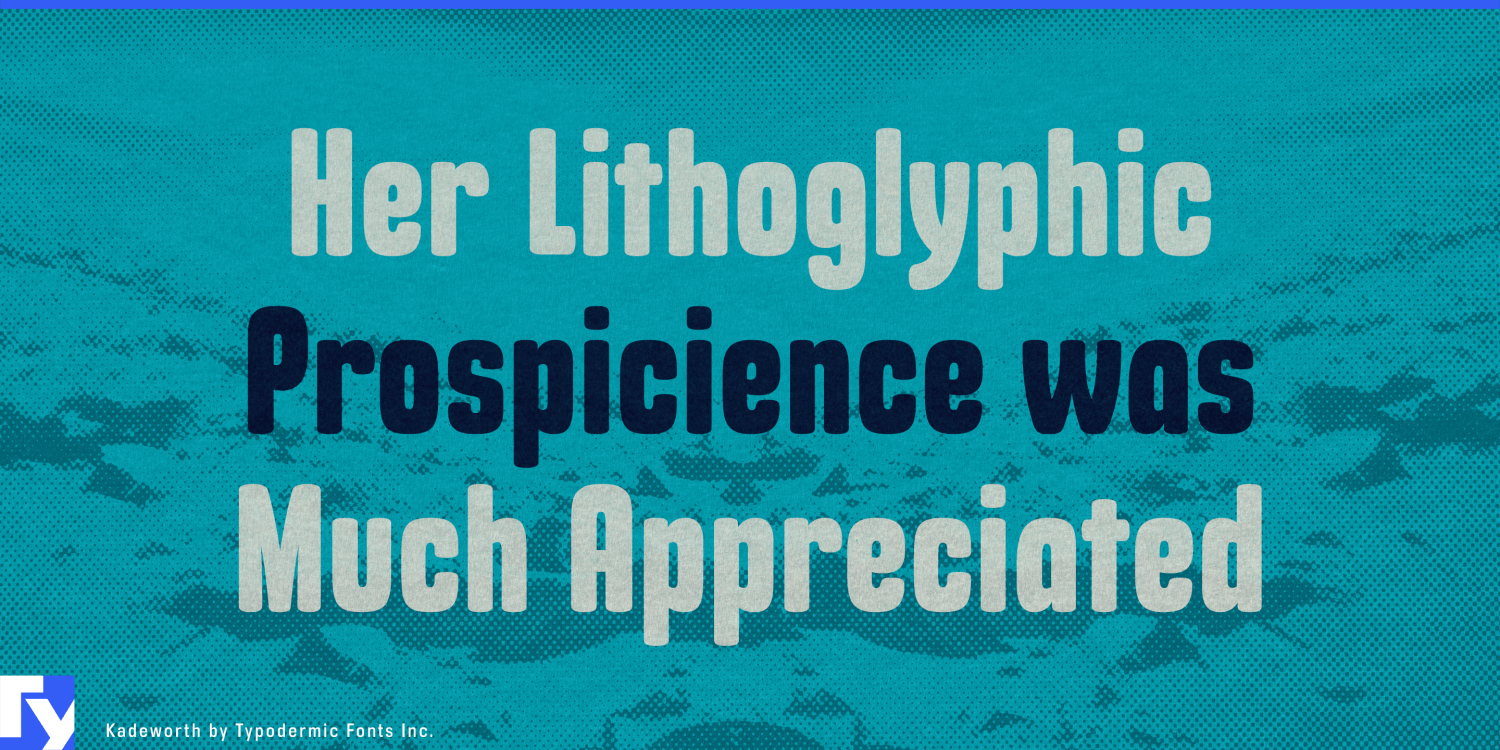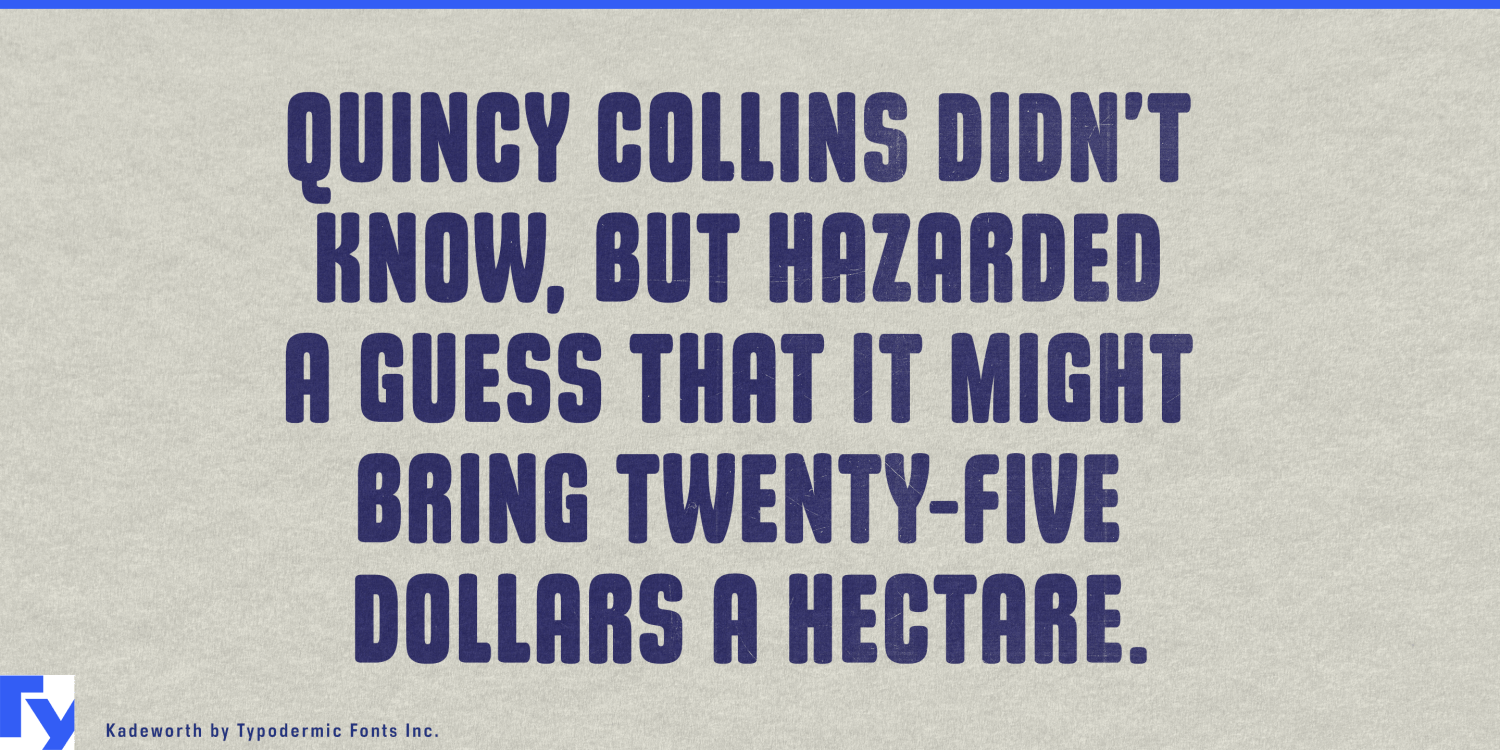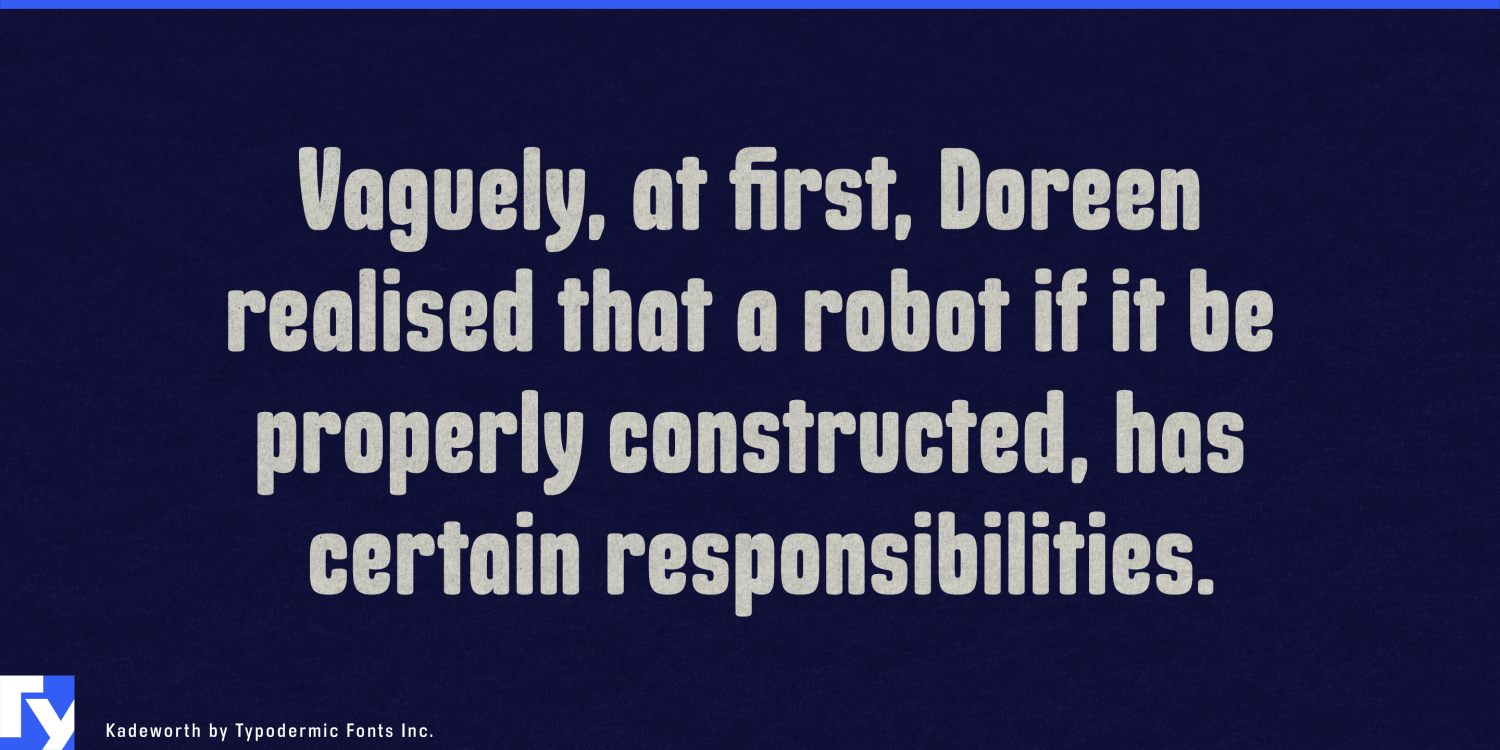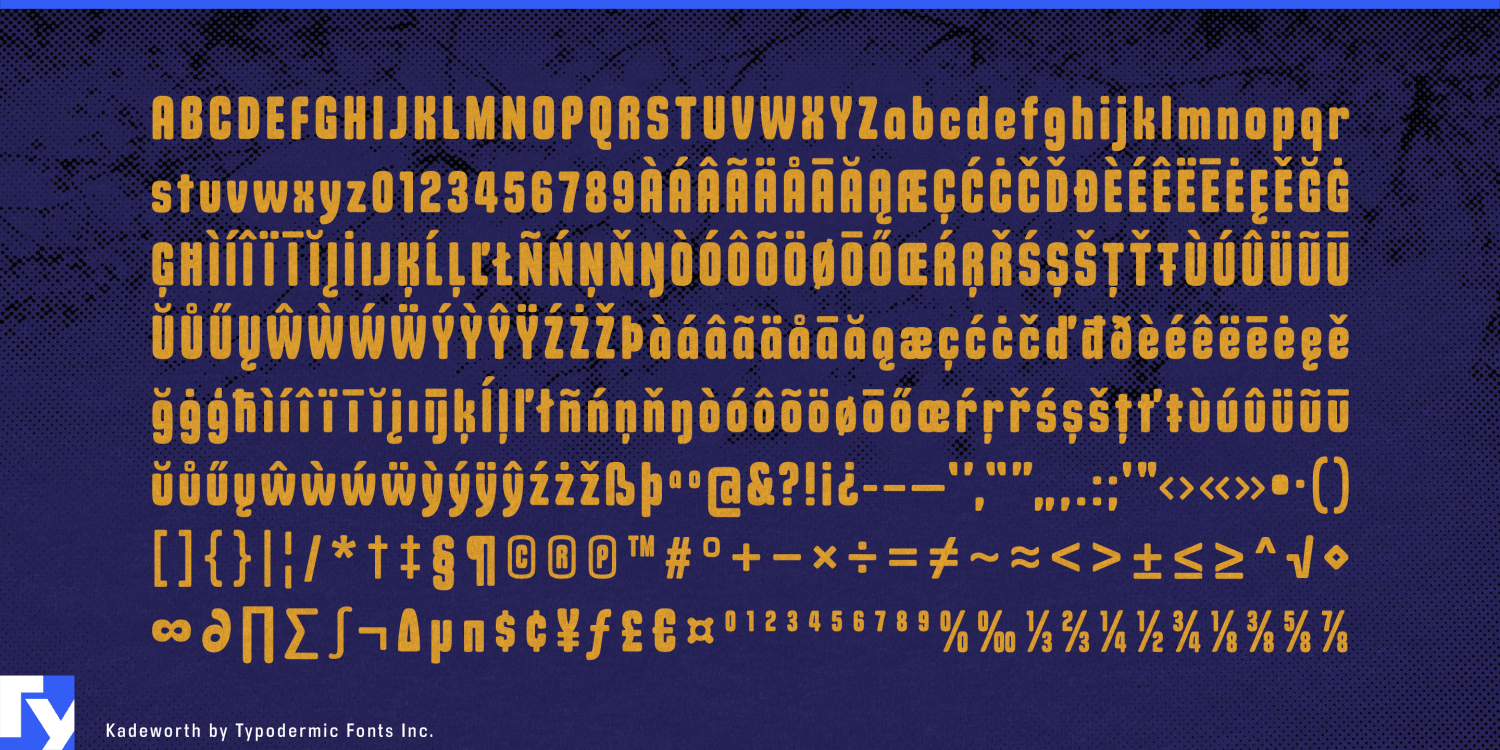
About Kadeworth
Kadeworth emerges as a bold statement in contemporary typography, striking a masterful balance between assertiveness and approachability. This rounded sans-serif typeface commands attention with its confident presence, while simultaneously inviting engagement…